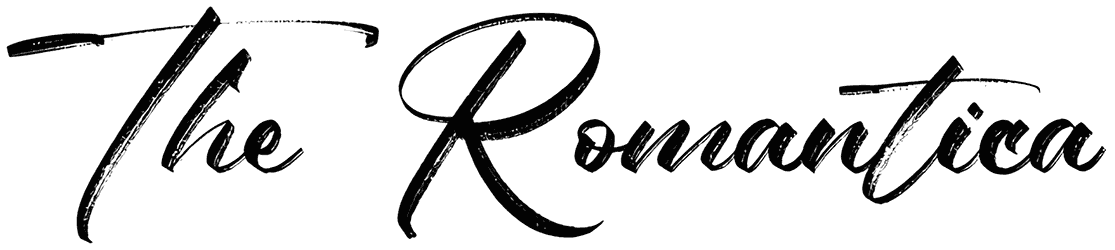
The Romantica Font
If you are passionate about having a script font that comes with accurate curves and well-rounded characters, we would offer you to have The Romantica on your radar.
This brush font is a true description of delicacy, dynamism, and softness, thus, you can attract the attention of the audience at first glance with the help of this masterpiece. It would be better to overlook not fully supporting numbers and try it on posters, logos, business cards, or flyers.